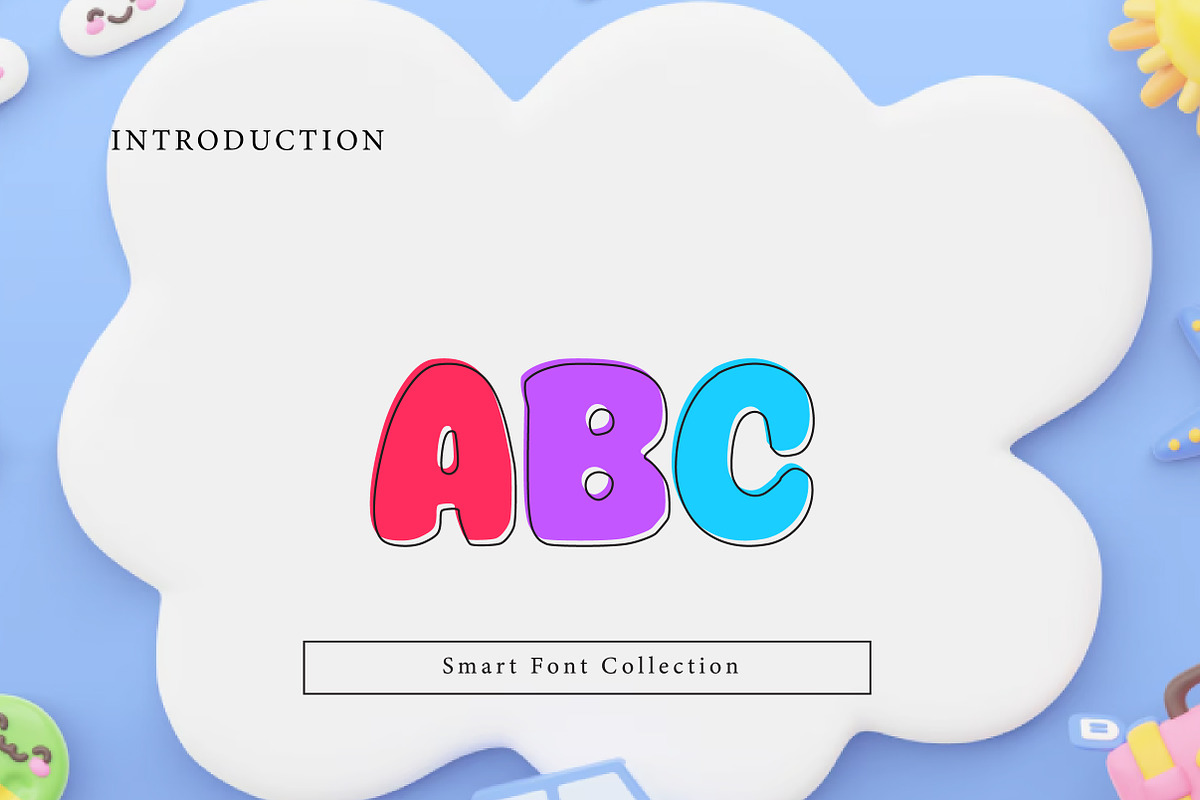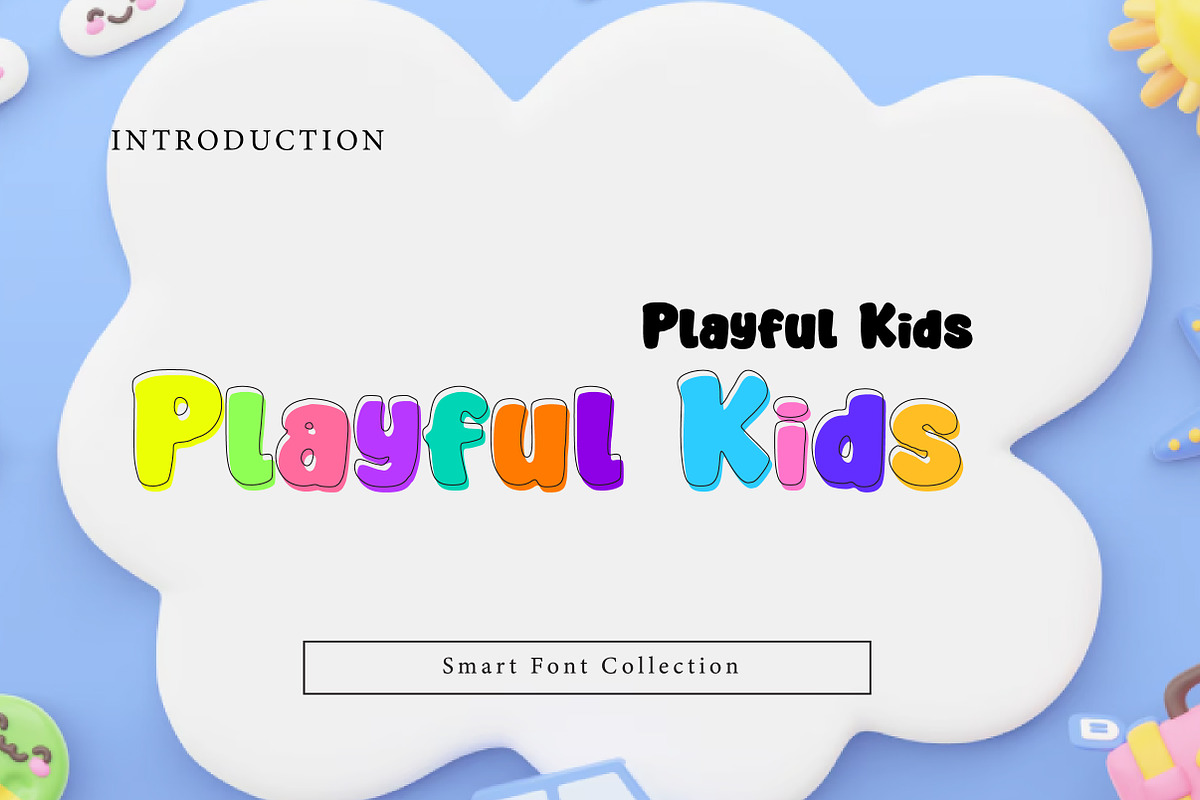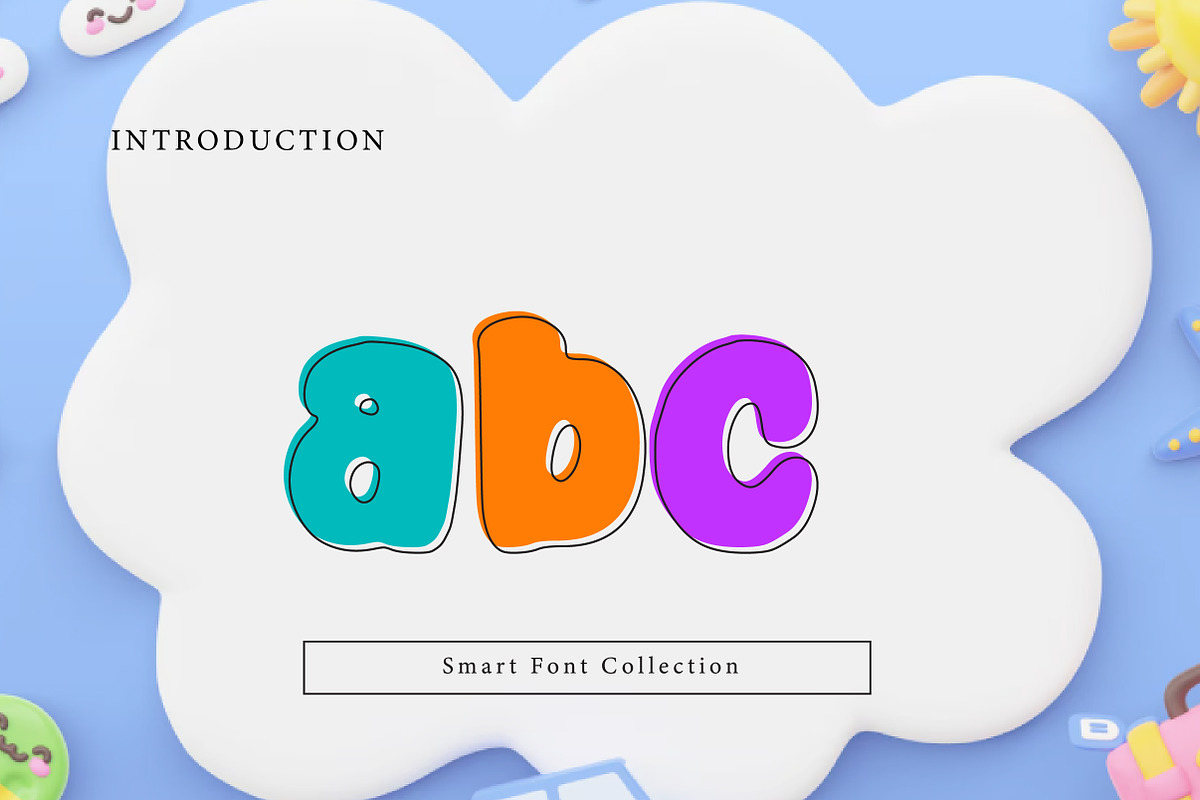
Playful Kids
Playful Kids is a fun, bold, and friendly display font designed especially for children’s designs and playful typography. With thick rounded shapes, soft curves, and a cute cartoon personality, this font is perfect for kids branding, educational materials, storybooks, posters, stickers, toys, birthday designs, packaging, and social media graphics. Playful Kids delivers cheerful readability and joyful style, making it ideal for bright creative projects and kid-friendly headlines.